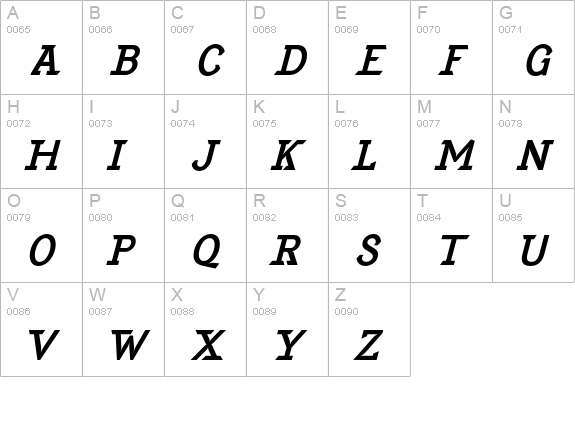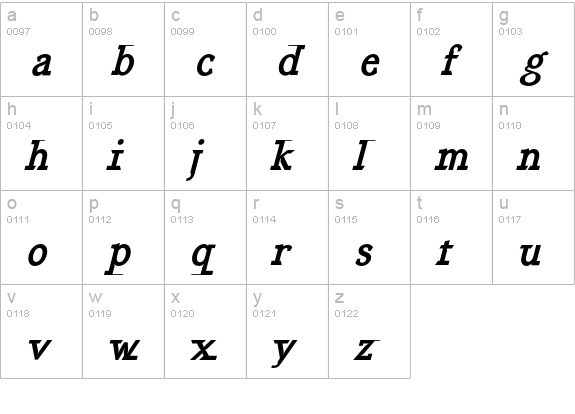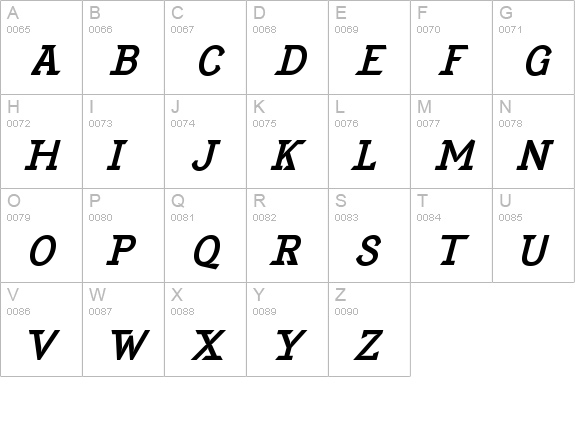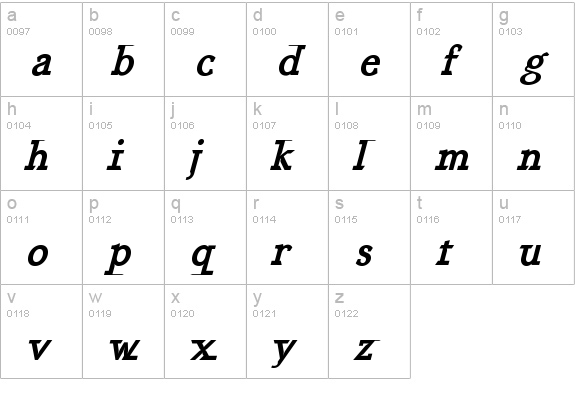
EquipoizeSerif-BoldItalic Font Details
EquipoizeSerif-BoldItalic is a striking and elegant typeface that exudes sophistication and modernity. The bold and italic design of this font adds a unique flair to any project, making it perfect for headers, titles, and other eye-catching text. The strong serifs and slanted italics create a sense of movement and energy, drawing the reader's attention to the message being conveyed. What sets EquipoizeSerif-BoldItalic apart is not only its visually appealing aesthetics but also its versatility. Whether used for print or digital media, this font is sure to make a statement and leave a lasting impression on viewers. Its bold weight commands attention, while the italicized slant adds a touch of elegance and dynamism. The best part? EquipoizeSerif-BoldItalic is available for free download at FontsMarket.com, making it easily accessible for designers, creatives, and enthusiasts alike. Don't miss out on the opportunity to enhance your projects with this stunning and impactful font. Download EquipoizeSerif-BoldItalic today and elevate your designs to new heights.